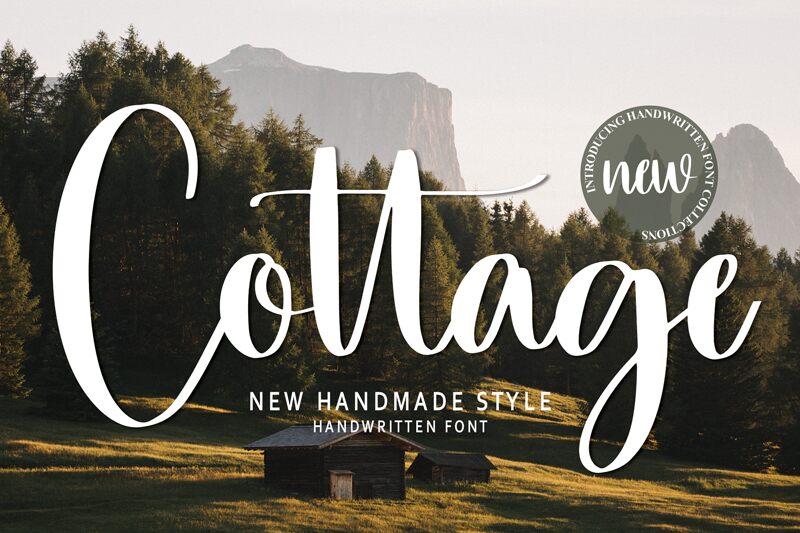
Cottage
Cottage font by Scratchones is an elegant flowing font that makes for a perfect addition to all your fun and casual designs. This expressive free handwritten font with its informal style and highly legible characters can instantly elevate your typography-based projects by offering it a very special flavor.
The versatile typeface is perfect for signatures, invitations, wedding or birthday cards, posters, product packaging designs, album covers, greeting cards, and stationery. Enhance magazines or body copy in websites and blogs with Cottage’s delightful personality where you want the copy to complement the visual aesthetics.